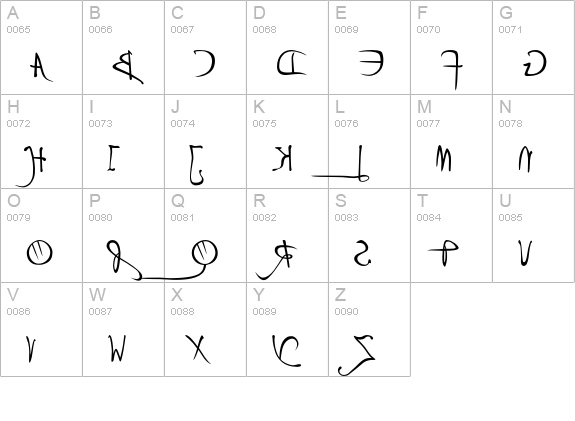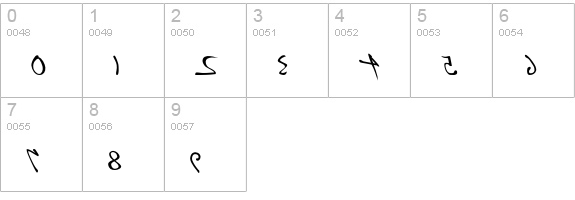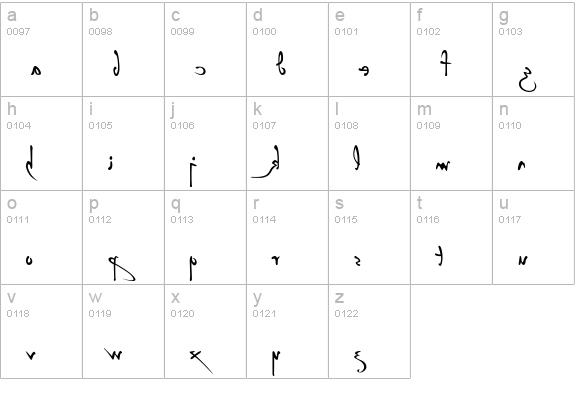
P22DaVinciBackwards Font Details
Introducing P22DaVinciBackwards font - a captivating and enigmatic typeface that pays homage to the genius of Leonardo da Vinci. This mesmerizing font takes inspiration from the artist's mirrored writing techniques, offering a unique and intriguing twist to your typography. P22DaVinciBackwards font boasts a seamless blend of elegance and mystery, with its meticulously crafted letterforms and intricate details. Each character is delicately reversed, creating an illusion of backward writing that adds an air of intrigue to any design. Whether you're working on an artistic project, designing a logo, or simply looking to add a touch of creativity to your personal documents, P22DaVinciBackwards font is the perfect choice. Its versatility allows it to be used in a wide range of design applications, from branding and packaging to book covers and posters. What sets P22DaVinciBackwards font apart is not only its captivating aesthetics but also its accessibility. This font is freely available to download at FontsMarket.com, allowing anyone to unleash their creativity without any financial barriers. Its availability in the free font library ensures that designers, students, and enthusiasts alike can easily access this remarkable font and let their imagination run wild. So, if you're seeking a font that seamlessly marries history with contemporary design, look no further than P22DaVinciBackwards font. Download it for free today at FontsMarket.com and embark on a typographic journey that will captivate and inspire your audience.